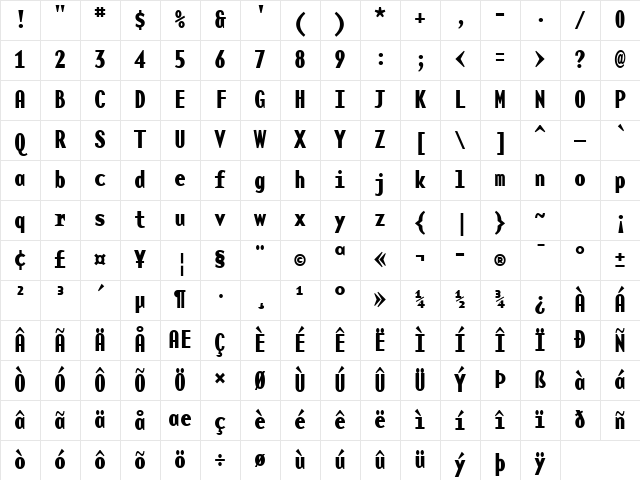
Complete BaseMonoNarrowBold Bold glyph index. Displaying only characters natively supported by BaseMonoNarrowBold Bold font.
BaseMonoNarrowBold uses fixed-width spacing throughout, giving it the structured, systematic character associated with coding environments and technical documentation. Its bold stroke weight gives it real presence on the page.